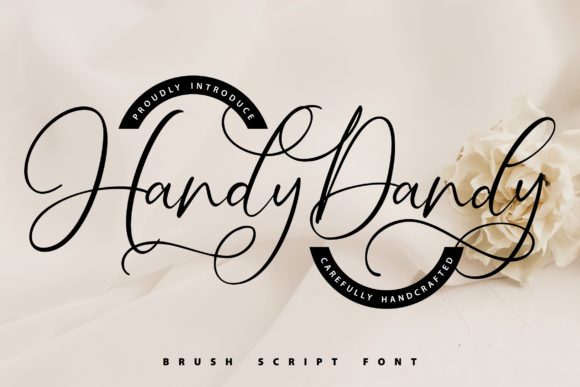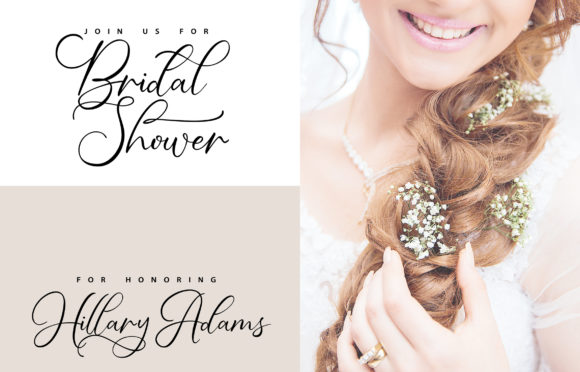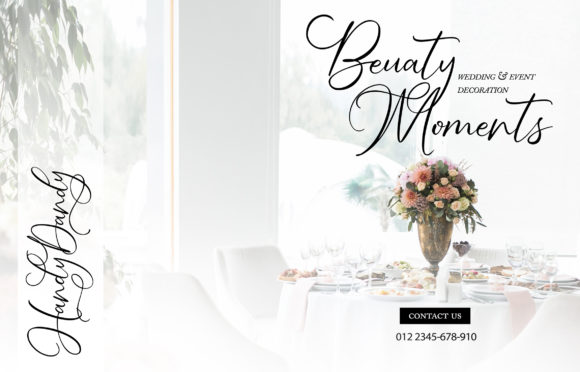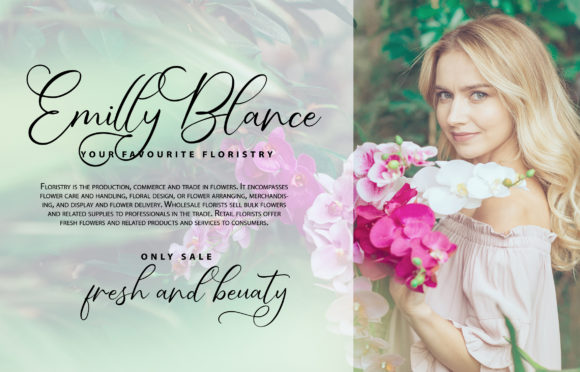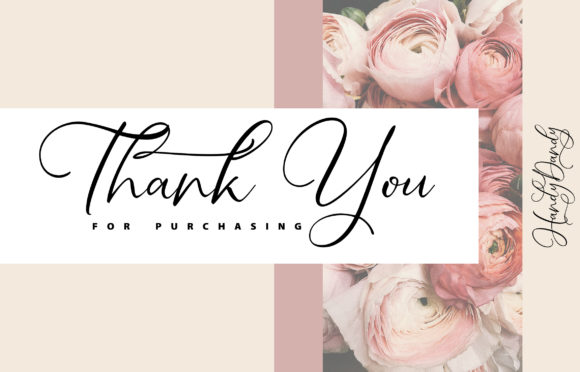
Handy-Dandy Font
About Handy-Dandy Font
Handy-Dandy is a sweet and charming handwritten font. Its timeless and flowing style is incredibly fitting to a wide pool of contexts. This font is PUA encoded which means you can access all of the glyphs and swashes with ease! It features a varying baseline, smooth lines, gorgeous glyphs and stunning alternates.